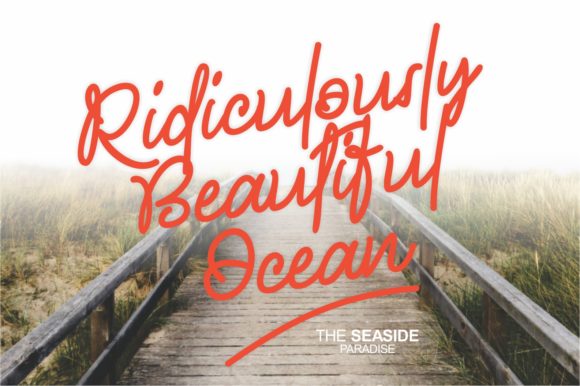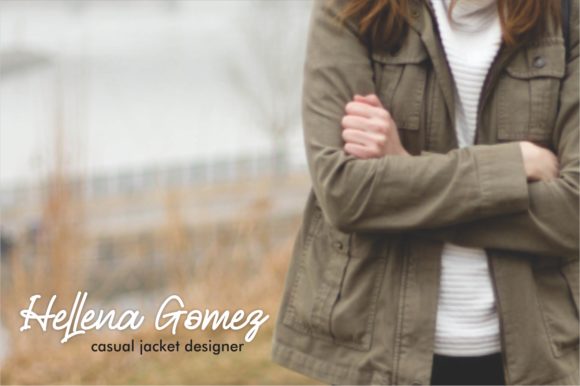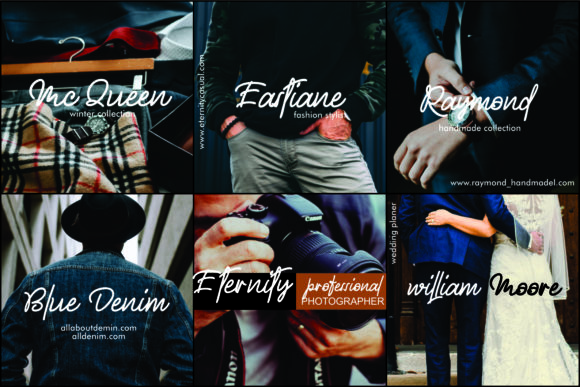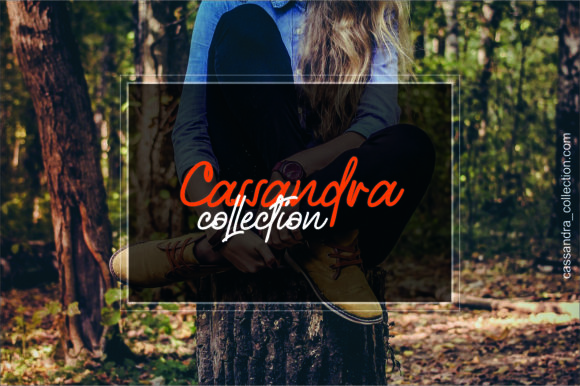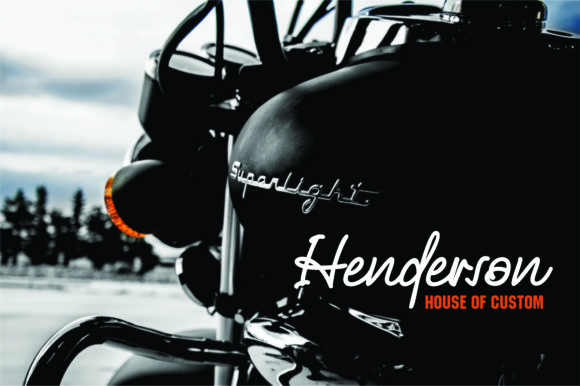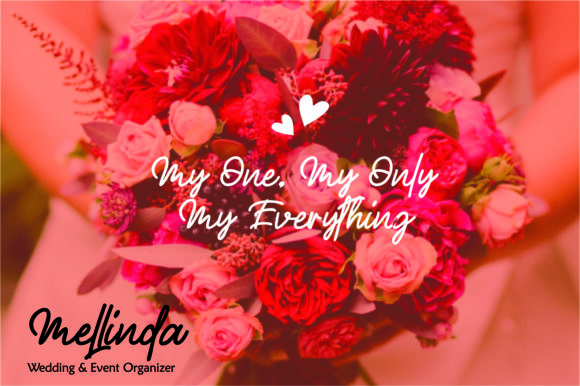
Introduction to Mellodious Font
Have you ever been in the middle of a design project, staring at a blank canvas, feeling stuck and uninspired? That’s where the magic of the Mellodious Font comes in. This stunning handwritten font is the perfect solution to add a touch of personality and whimsy to your creative project. With its playful, dynamic feel, the Mellodious Font is sure to elevate your designs and make them stand out from the crowd.
As a valuable design resource, the Mellodious Font offers high-quality typography that’s perfect for a wide range of applications, from logos and branding to social media graphics and print materials. Plus, with a transparent background, you can easily layer it over images or textures to create a unique and eye-catching look. Whether you’re a seasoned designer or just starting out, the Mellodious Font is a must-have in your design toolkit.
Key Features of Mellodious Font
- Includes a range of characters, including uppercase and lowercase letters, numbers, and special symbols.
- Designed with a unique, elegant style, perfect for use in logos, typography, and other design elements.
Honest Review: Mellodious Font
- High-quality design: The Mellodious Font is beautifully crafted, with a unique and elegant style that’s perfect for a variety of creative projects.
- Limited character set: The Mellodious Font has a relatively small character set, which may limit its use in certain projects.
- Not suitable for body text: While the font is great for headings and titles, it may not be the best choice for body text due to its unique style.
Overall, I’m impressed with the Mellodious Font, but I do wish it had a more comprehensive character set. Still, it’s a great design resource for anyone looking to add a touch of elegance to their creative projects.
The Mellodious Font is suitable for various design projects, including social media graphics, posters, flyers, business cards, and presentations. Its high-quality design makes it an excellent choice for creative professionals and hobbyists who want to add a professional touch to their work.